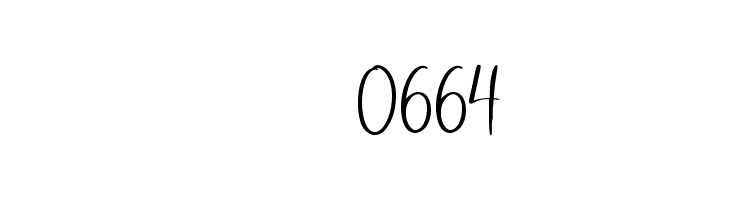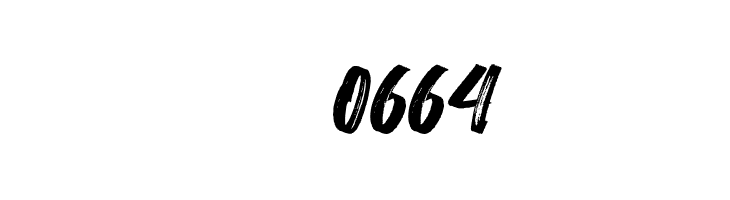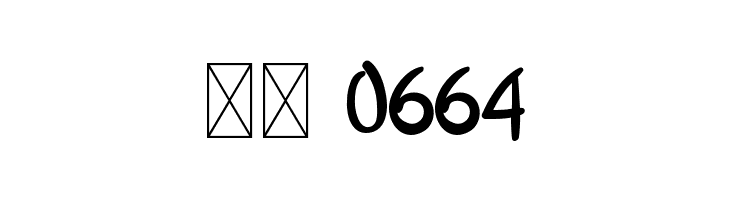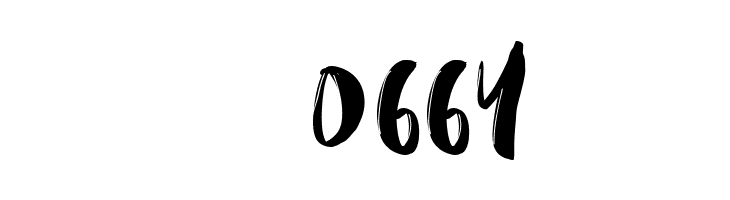
A bold, playful font with thick, rounded strokes and a hand-drawn feel.
A bold, 3D italic font with a dynamic and modern style.
A bold, 3D geometric font with a modern, shadowed design.
A bold, italic, and geometric font with a modern, dynamic style.
A bold, outlined, italic font with a modern and dynamic style.
A bold, geometric outline font with a modern and edgy aesthetic.
A bold, expressive handwritten font with dynamic strokes and a modern flair.
A decorative font with bold characters enclosed in hexagonal frames, featuring intricate line patterns.
A geometric, decorative font with characters in hexagonal frames.
A bold, geometric font with characters enclosed in decorative hexagons.
A bold, brush-style font with dynamic, energetic strokes.
A lively, expressive handwritten font with fluid, sweeping strokes.
A playful, bold font with rounded, bubbly characters and whimsical white dots.
A bold, brush-style font with dynamic, expressive strokes.
A bold, expressive handwritten font with dynamic brush strokes.
A bold, playful font with rounded characters and whimsical cutouts.
A bold and expressive brush font with a hand-painted, artistic style.
An elegant, flowing script font with ornate uppercase and smooth lowercase letters.
A bold, handwritten font with dynamic, brush-like strokes.
A bold, flowing script font with a dynamic and elegant handwritten style.
A bold, 3D decorative font with shadow effects and textured patterns.
A playful, handwritten font with smooth curves and a slight slant.
A modern, hollow font with playful and open character designs.
A modern, hollow, and inverse font with a playful yet sophisticated style.
A modern, decorative font with fluid, looping lines and a playful style.
A playful and modern font with rounded, looping strokes.
A bold, playful font with rounded, bubble-like characters and a modern, quirky style.
A bold, playful font with rounded, bubble-like characters and an italic style.
A bold, playful font with rounded, bubble-like characters.
A modern, hollow font with rounded edges and geometric shapes.
A hollow, inverse font with bold outlines and a geometric, modern style.
A bold, playful font with rounded, inverse-style characters.
A bold, geometric font with rounded shapes and a modern, playful style.
A dynamic handwritten font with fluid, connected strokes and a lively appearance.